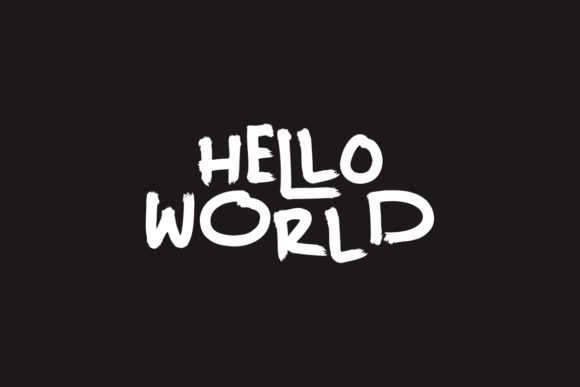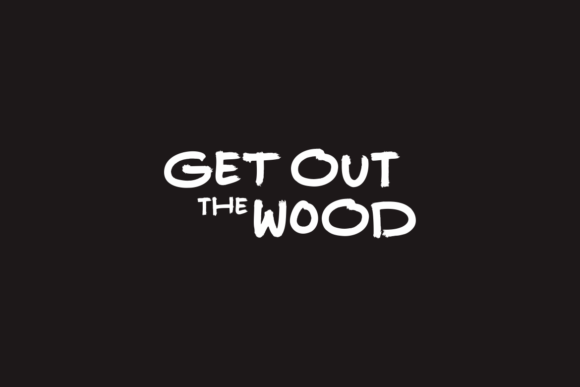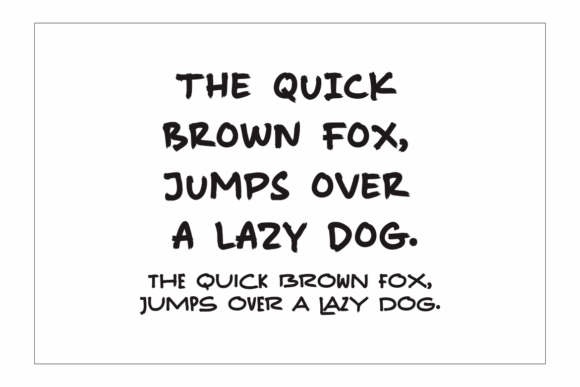
Introduction to Marker Random Font
Marker Random is a brush display font.
Its casual charm makes it appear wonderfully down-to-earth, readable, and ultimately incredibly versatile Marker Random will look outstanding in any context, whether it’s being used on busy backgrounds or as a standalone headline.
Key Features of Marker Random Font